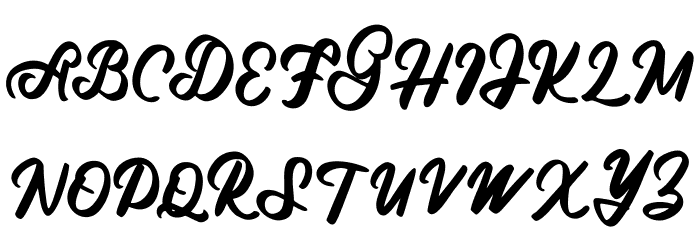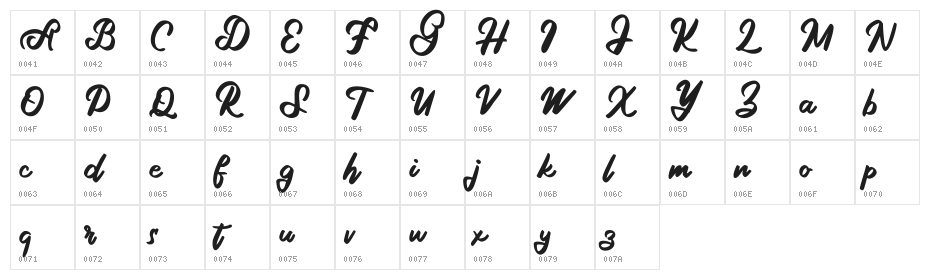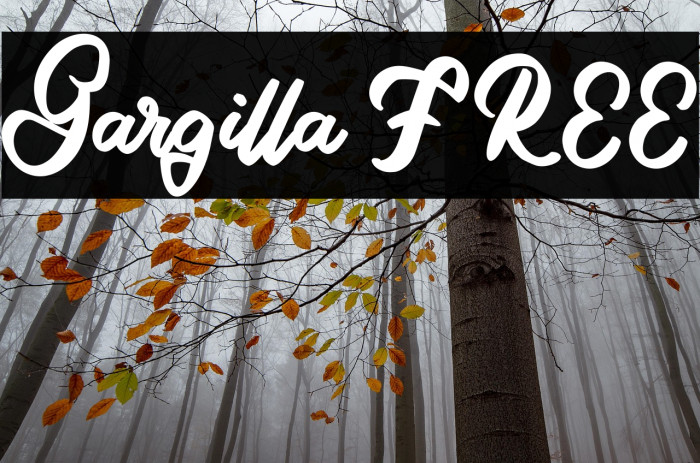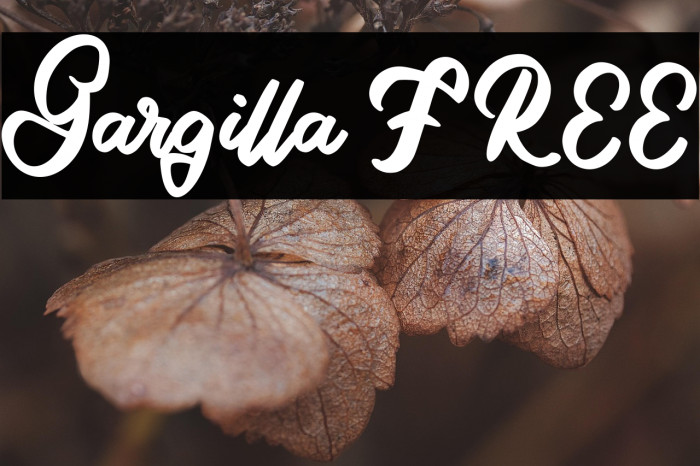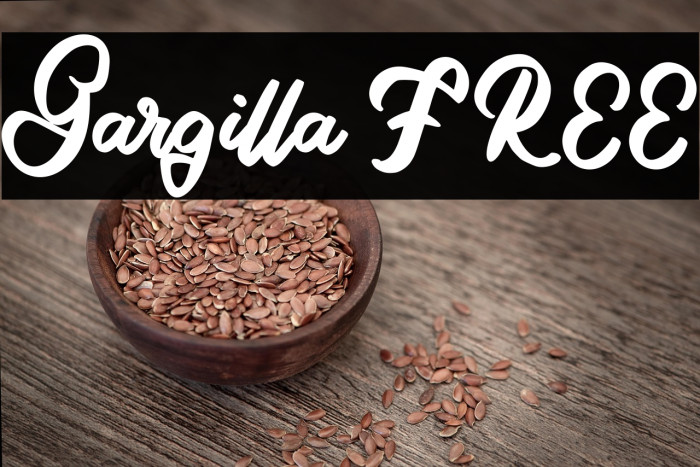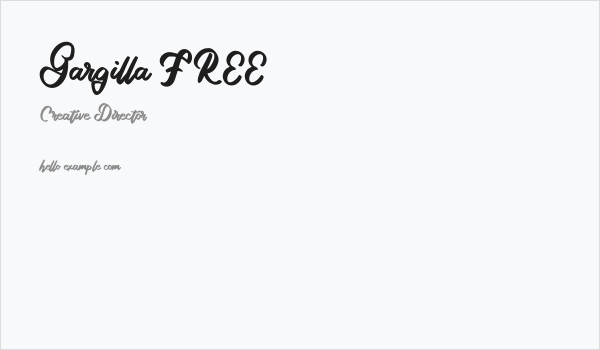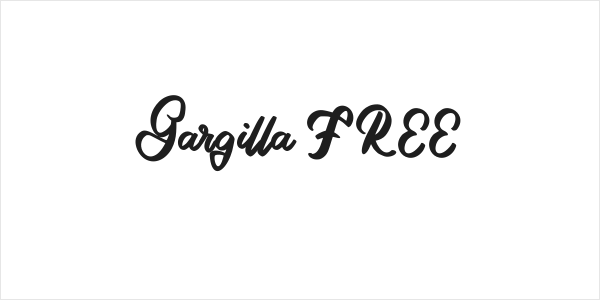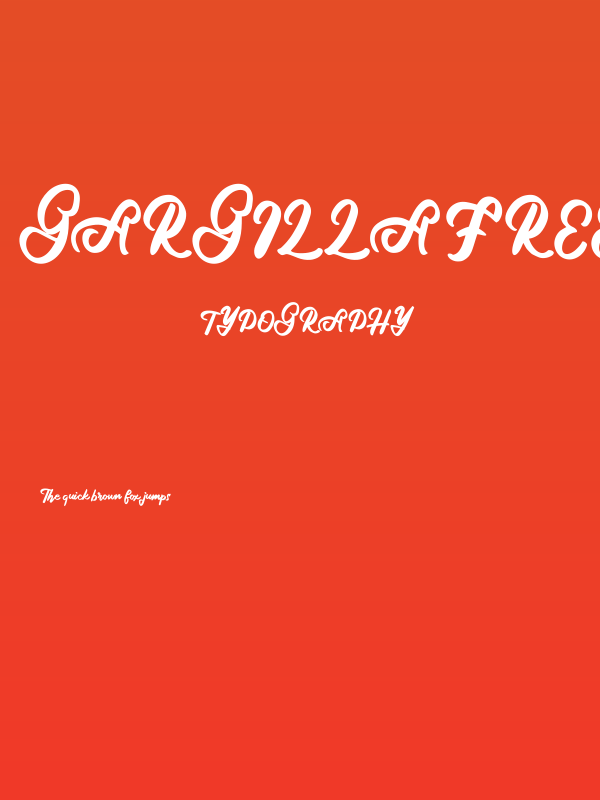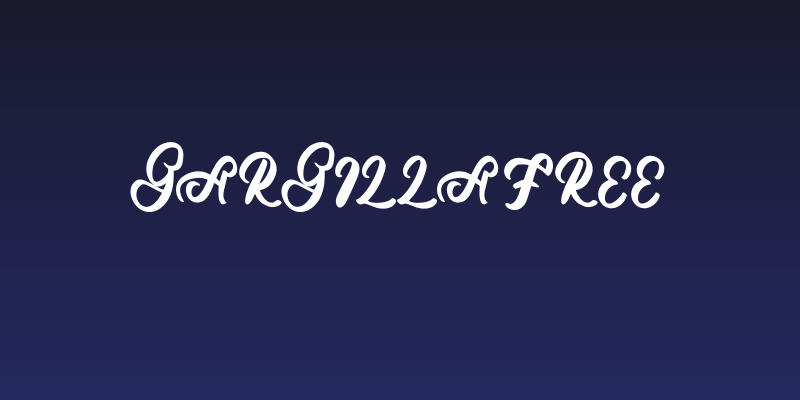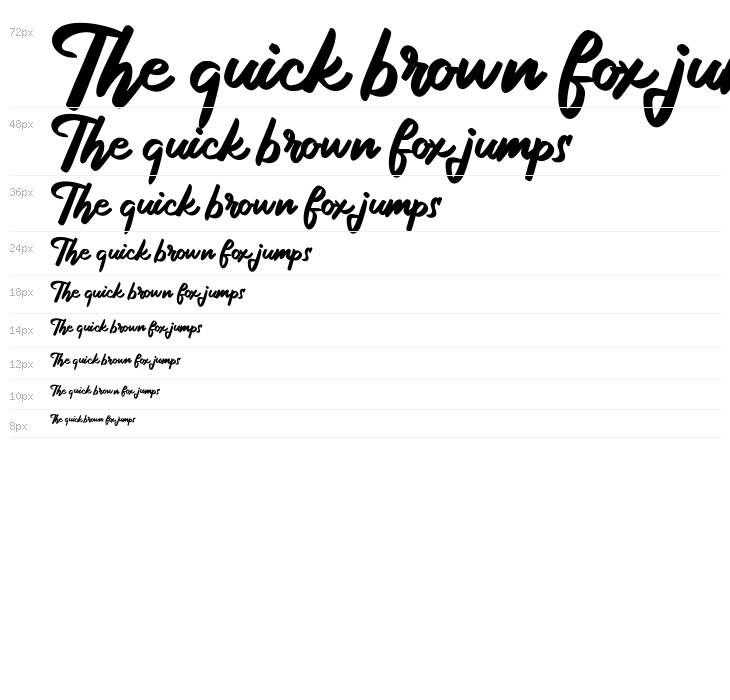
Gargilla FREE Font
Gargilla FREE Description
This font features a bold and expressive script style, characterized by its flowing, cursive letters that convey a sense of elegance and dynamism. The uppercase letters are ornate, with sweeping curves and loops that add a decorative flair, while the lowercase letters maintain a consistent fluidity, enhancing readability despite their intricate design. The font's bold weight provides a strong visual impact, making it suitable for attention-grabbing headlines or branding materials. The character spacing is relatively tight, which contributes to the cohesive appearance of the text. The font's high contrast between thick and thin strokes adds to its dramatic and stylish look, making it ideal for projects that require a touch of sophistication and flair.
| Proposed Projects | Ideal for wedding invitations, branding, logos, and elegant packaging designs. |